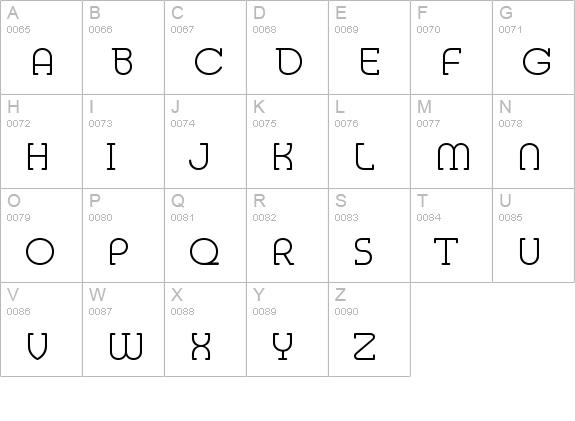
MediaSerifEF-ExtraLight is an airy, ultra-refined variant in the MediaSerifEF typeface family \xE2\x80\x94 well suited to minimalist headlines and refined display use.
MediaSerifEF-ExtraLight is a modern and elegant font that exudes sophistication and style. With its delicate and refined serifs, this typeface is perfect for adding a touch of class to your designs. The thin weight of MediaSerifEF-ExtraLight makes it ideal for creating a sleek and polished look in any project. What sets MediaSerifEF-ExtraLight apart is that it is available for free download at FontsMarket.com. This means that you can easily access this stunning font without any cost, making it a fantastic choice for designers looking to elevate their work without breaking the bank. Whether you're working on a branding project, website design, or any other creative endeavor, MediaSerifEF-ExtraLight is sure to make a lasting impression. Download it today and enjoy the beauty and versatility of this exquisite typeface.